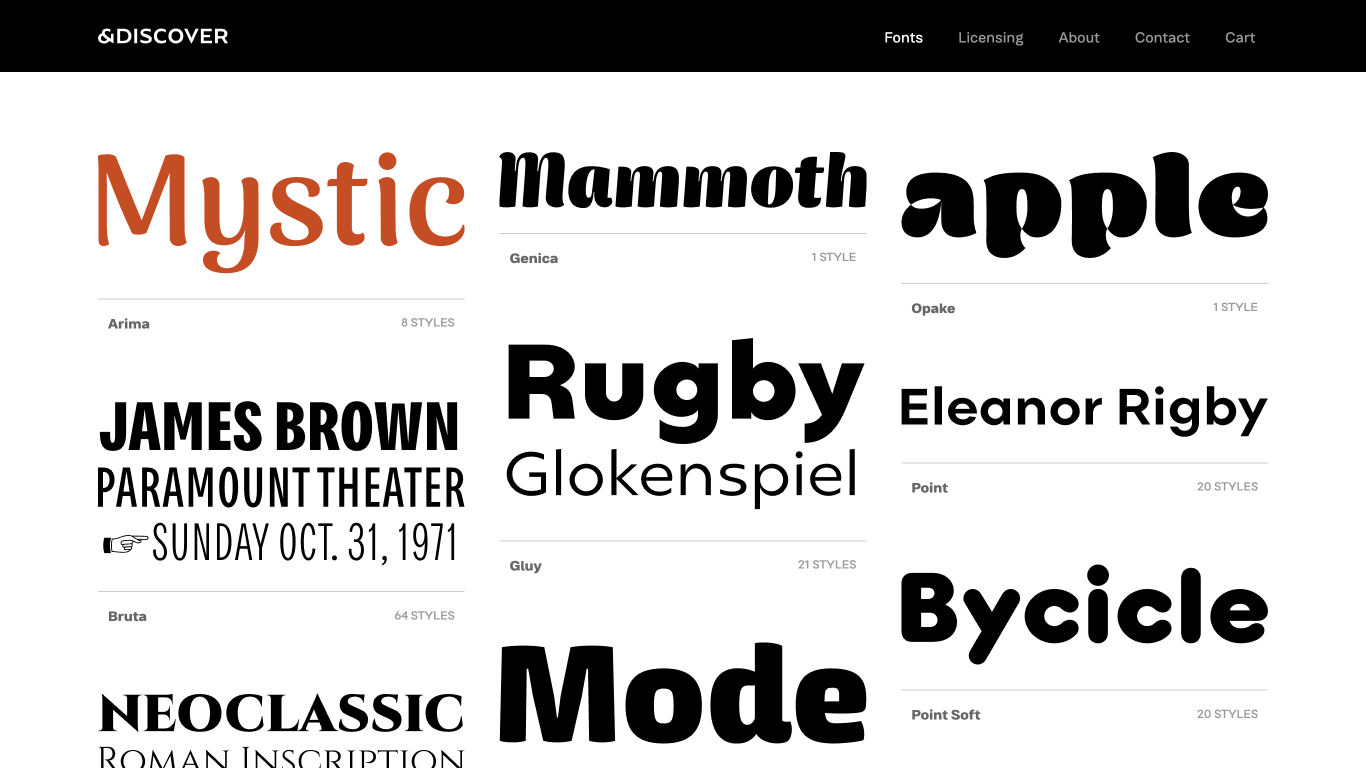
&discover
&DISCOVER is a Lisbon-based type foundry founded in 2011 by Natanael Gama, focused on creating distinctive, high-quality fonts. Known for typefaces like Exo, Cinzel, and Nazare, the studio combines classical influences with modern design to help brands stand out.
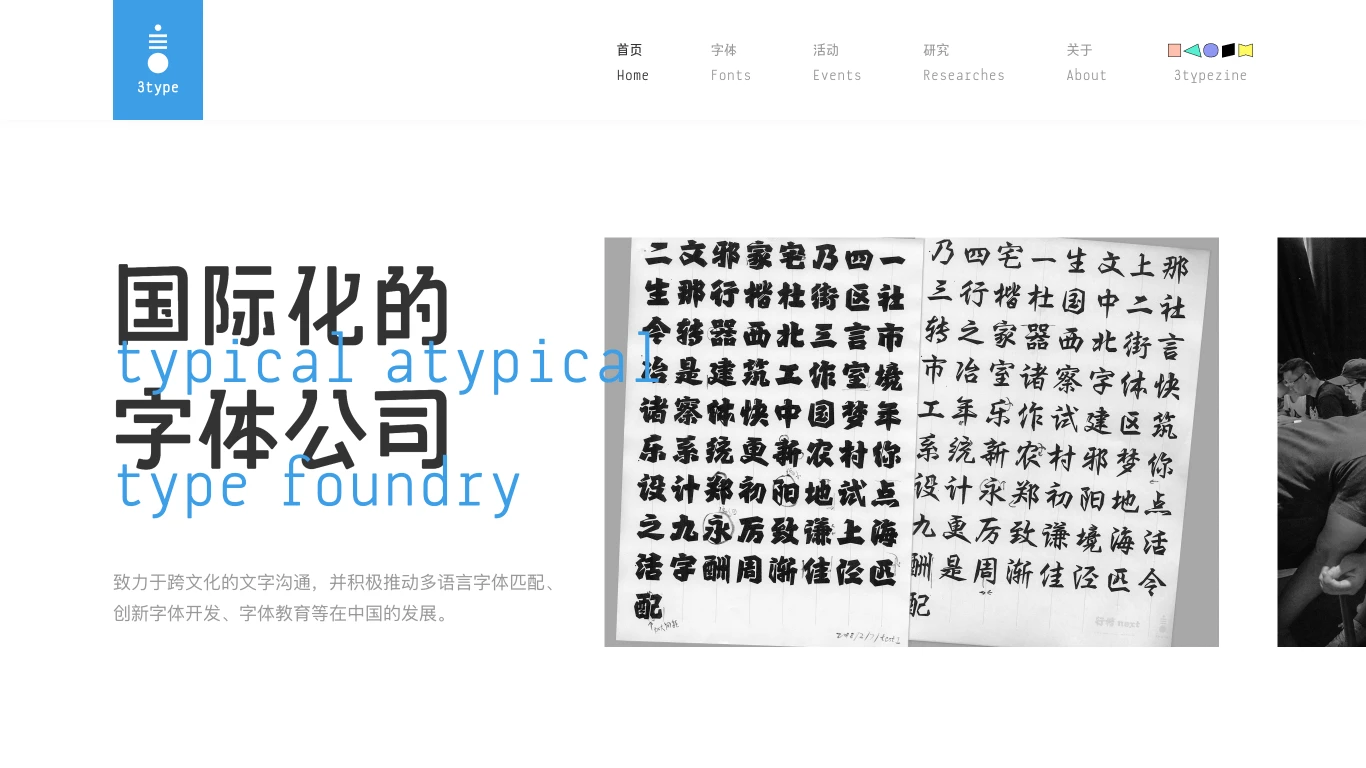
3type
3type is a Shanghai-based type foundry specializing in multilingual and multiscript typography, particularly in Chinese, Latin, Cyrillic, and Arabic scripts.
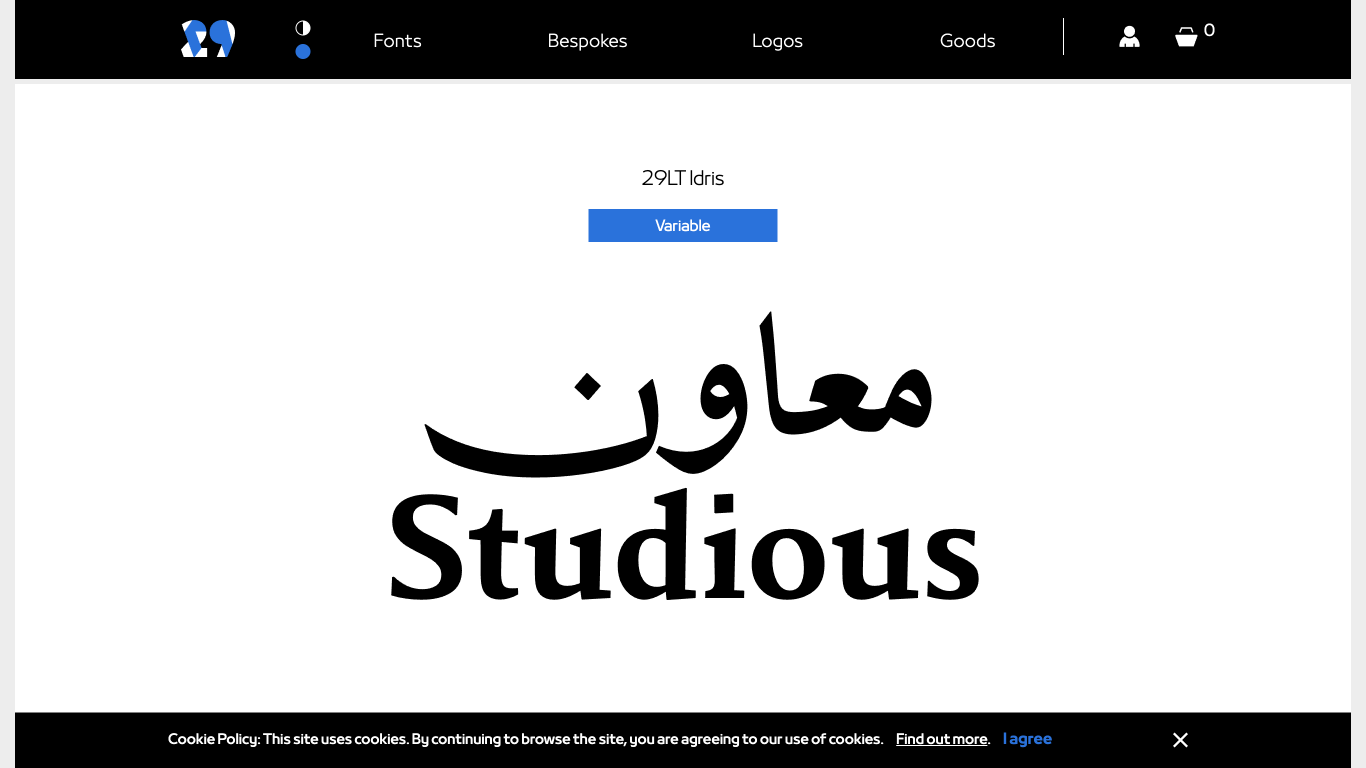
29Letters
29LT is a type foundry specializing in creating multi script fonts, particularly focusing on Arabic and Latin typography through collaborations with professional Arab and European type designers.
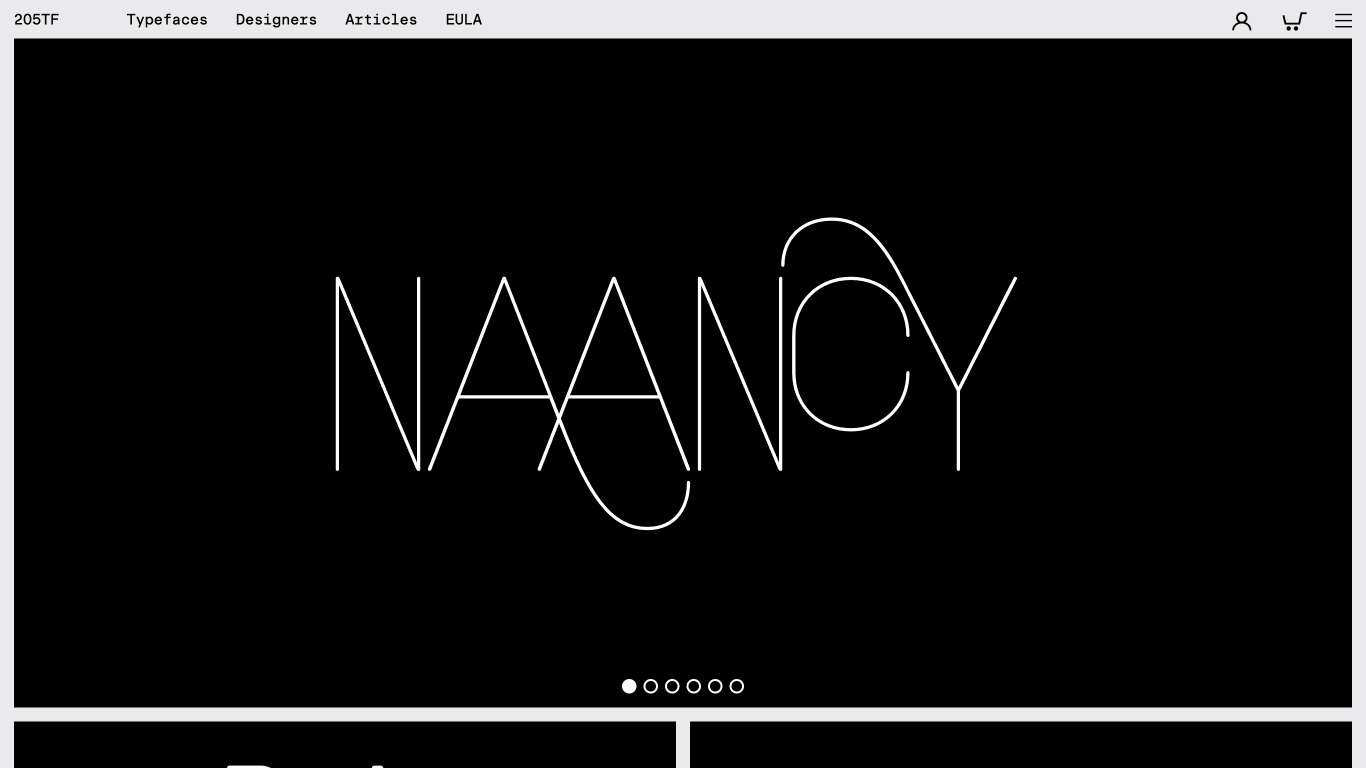
205TF
205TF is a French type foundry that collaborates with both renowned and emerging independent typeface designers, offering typefaces that embody a distinct French spirit.